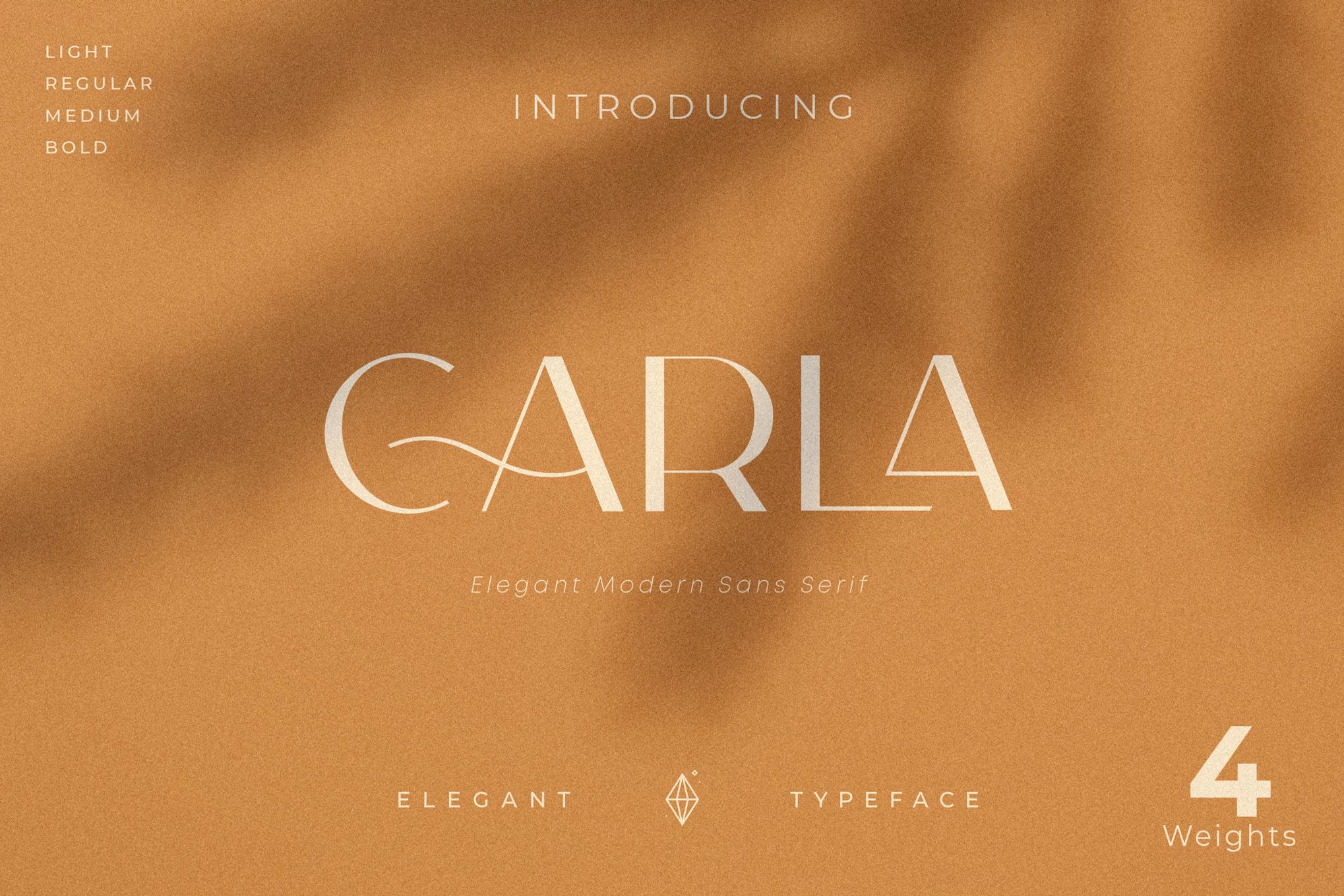
Carla Sans - Elegant Typeface Font
The Carla Sans - Elegant Typeface Font is perfect for luxury fashion branding, high-end cosmetics packaging, premium corporate identities, sophisticated website designs, elegant magazine layouts, upscale restaurant branding, boutique hotel signage, minimalist poster designs, contemporary art gallery materials, and refined editorial typography.
What makes the Carla Sans - Elegant Typeface Font so exciting is its perfect balance of modern minimalism and timeless sophistication. This stunning typeface features clean geometric lines, carefully proportioned letterforms, and subtle design refinements that create an atmosphere of understated luxury and professional excellence. The font's contemporary sans-serif structure combined with elegant character spacing delivers exceptional readability while maintaining a distinctly premium aesthetic that elevates any design project.
The Carla Sans - Elegant Typeface Font family includes comprehensive weight variations, featuring Thin, Light, Regular, Medium, Semi-Bold, Bold, and Black options. Each weight maintains the signature elegance while offering different levels of visual impact, plus matching italic styles that provide designers with complete typographic flexibility for complex layout requirements.
The meticulous attention to detail in Carla Sans - Elegant Typeface Font showcases expert typographic craftsmanship, with each character optimized for maximum legibility and visual harmony. The font's extensive character set includes multilingual support, advanced OpenType features, stylistic alternates, and comprehensive punctuation, ensuring seamless integration into international projects and demanding professional workflows.
Perfectly suited for both digital and print environments, this remarkable font maintains its elegant proportions and crisp clarity across all sizes and media formats. From large-scale advertising displays to detailed body text, Carla Sans - Elegant Typeface Font performs flawlessly while preserving its sophisticated character and contemporary appeal.